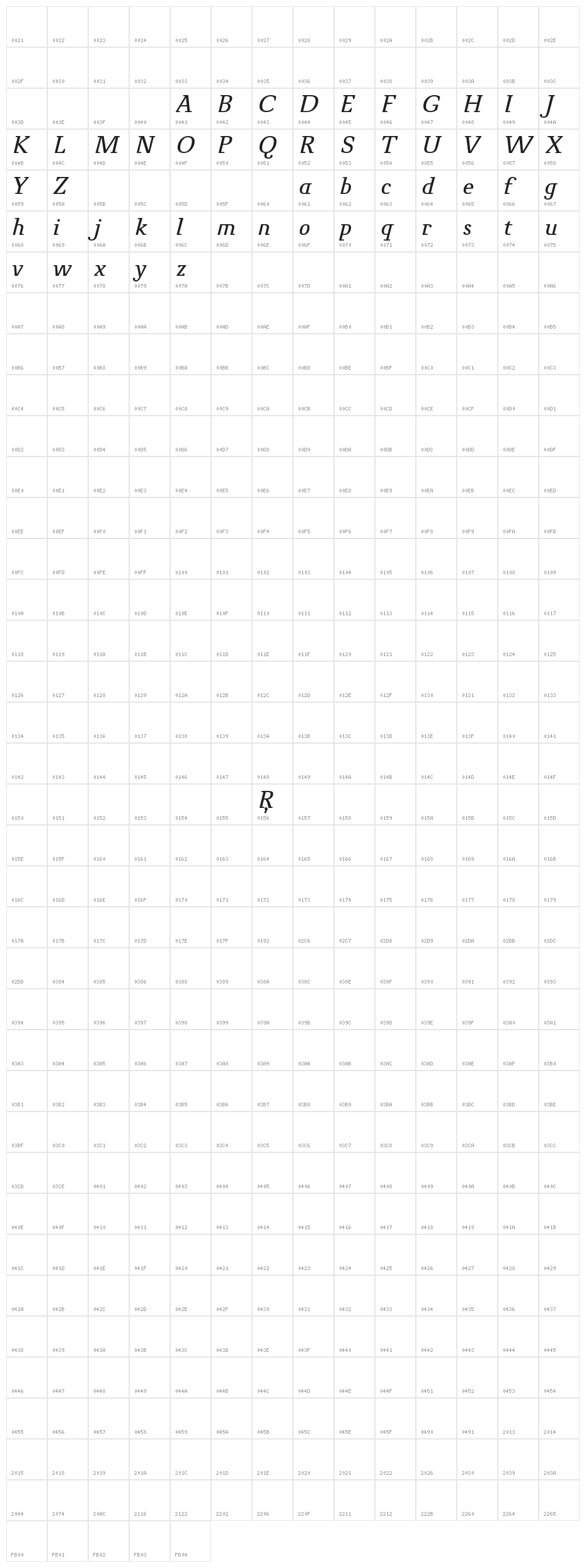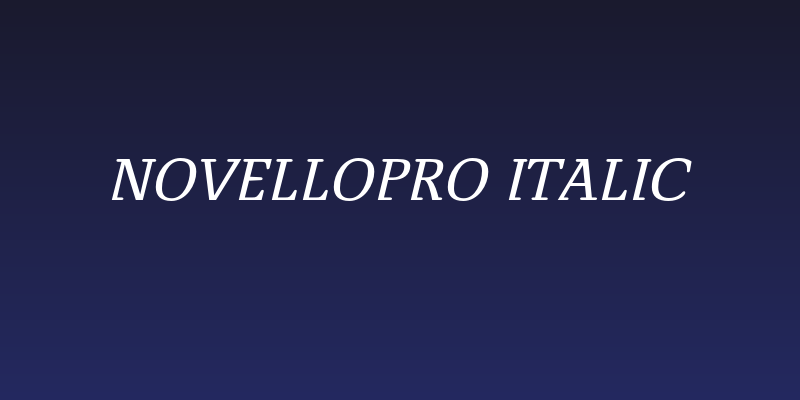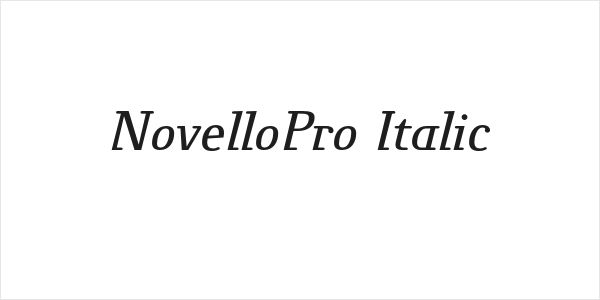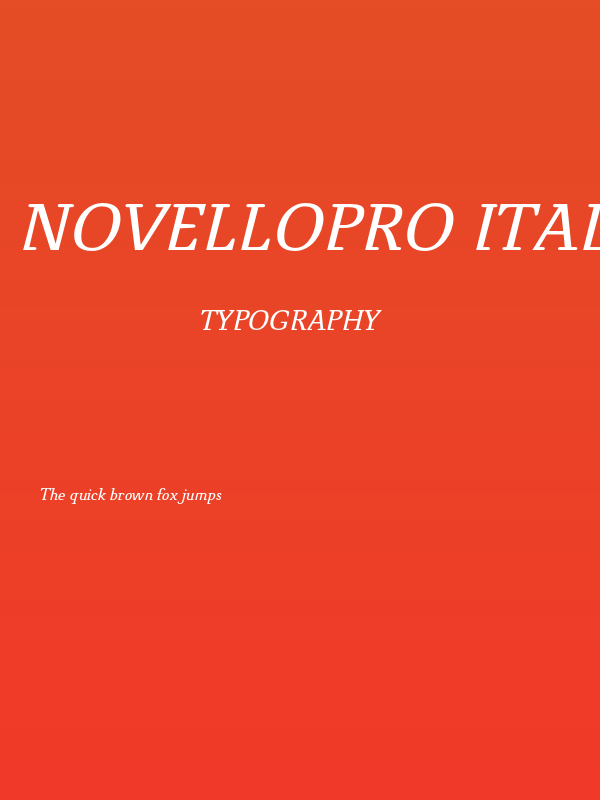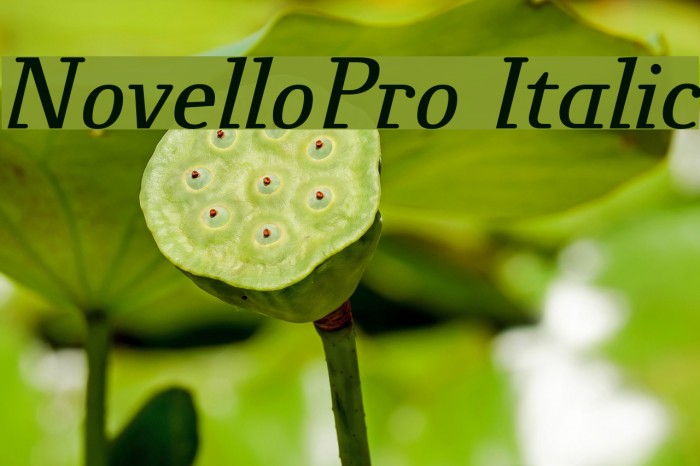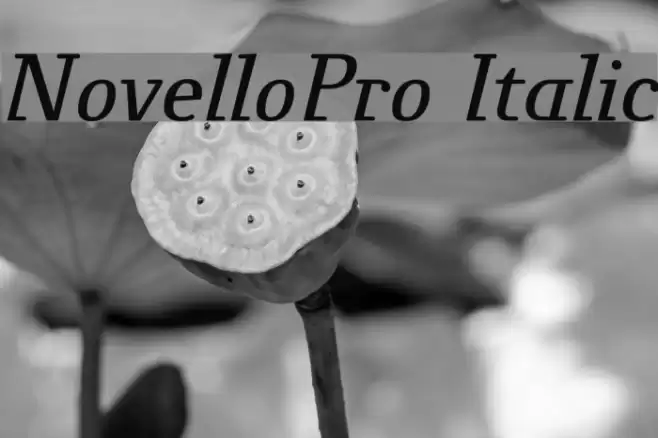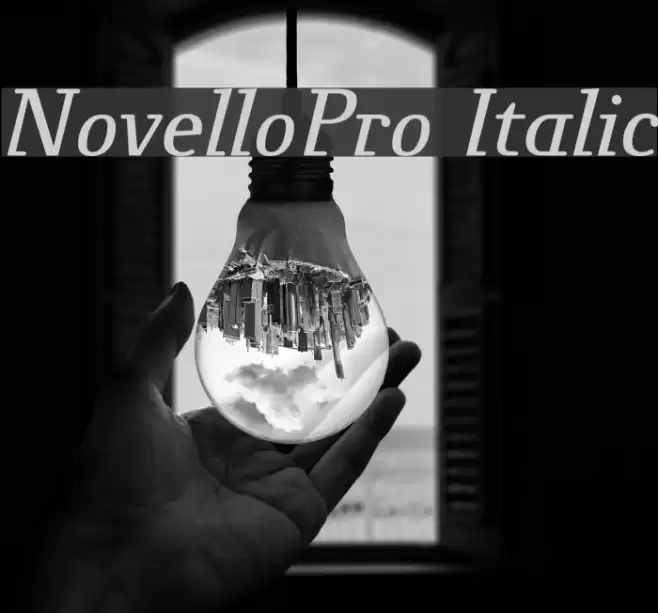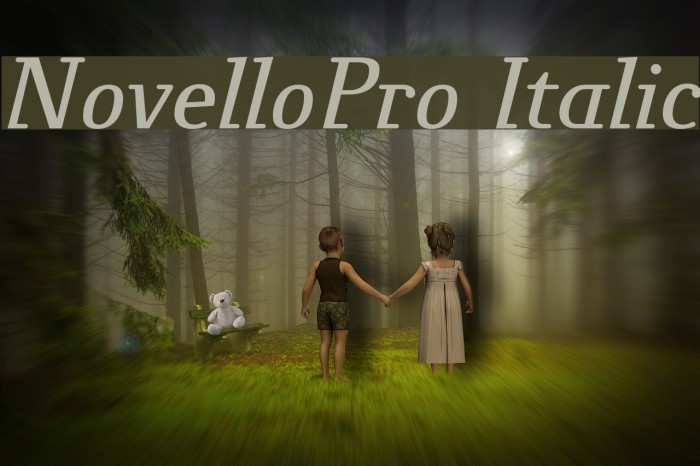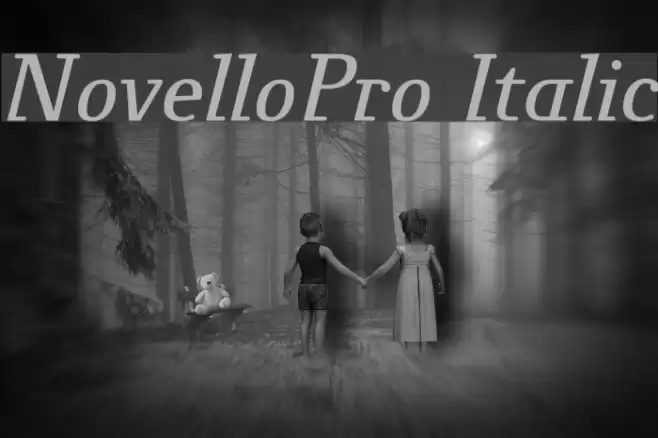
NovelloPro-Italic Font
NovelloPro-Italic Description
This font exhibits a classic and elegant italic style, characterized by its smooth and flowing curves. The letters are slightly slanted to the right, giving a sense of motion and sophistication. The serifs are subtle yet distinct, providing a traditional feel while maintaining readability. The overall design is balanced, with moderate contrast between thick and thin strokes, enhancing its legibility. This font is versatile, suitable for both formal and creative applications, and can add a touch of refinement to any project.
| Overall Style | Classic |
| Use Case | Headlines, Body text, Logos |
| Proposed Projects | Ideal for use in editorial design, book covers, invitations, and branding materials where a touch of elegance is desired. |